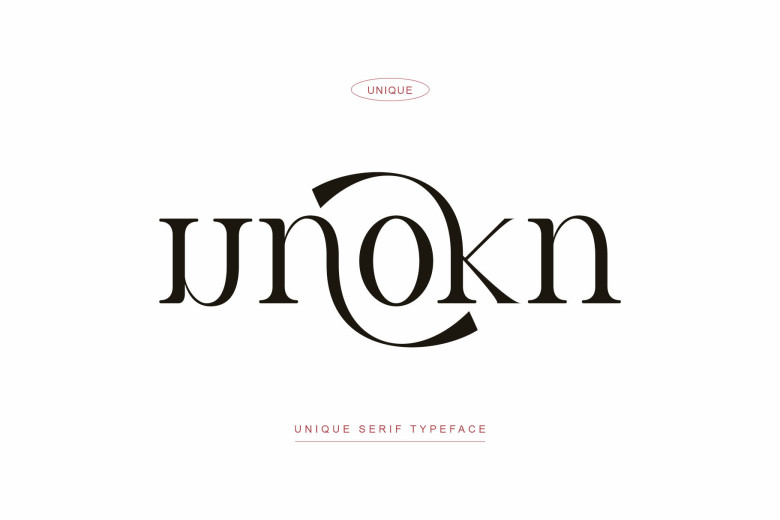
Unokn Font
Introducing Unokn is a elegant modern and classy serif font. This font is both modern and nostalgic and works great for logos, magazine, social media, large titling, body text, and more! Already matched up and ready to be used together for your next design!
For those of you who are needing a touch of elegant, stylish, classy, chic and modernity for your designs, this font was created for you! Unokn was built with OpenType features and includes ligatures, numbers, punctuation, and it also supports other languages.
Unokn Serif Font